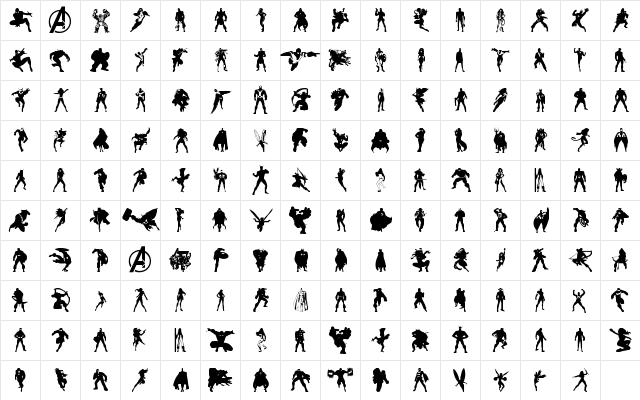
Heroes Assemble Dingbats Regular
Design Context for Heroes Assemble Dingbats Typeface
Heroes Assemble Dingbats takes a measured approach to typography — its balanced proportions and neutral character make it a reliable workhorse for both digital and print work.